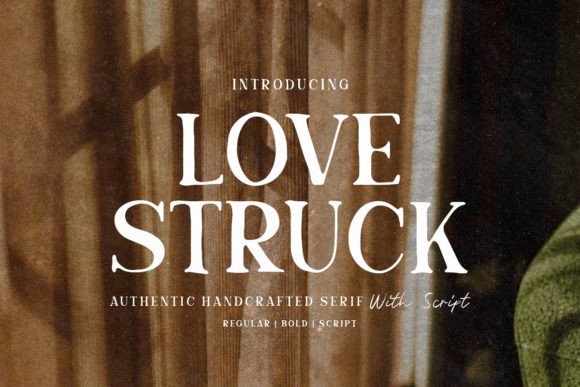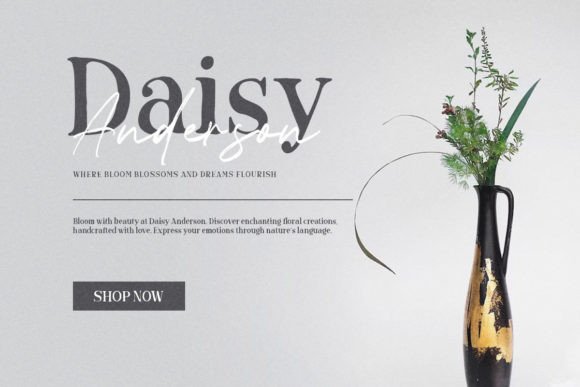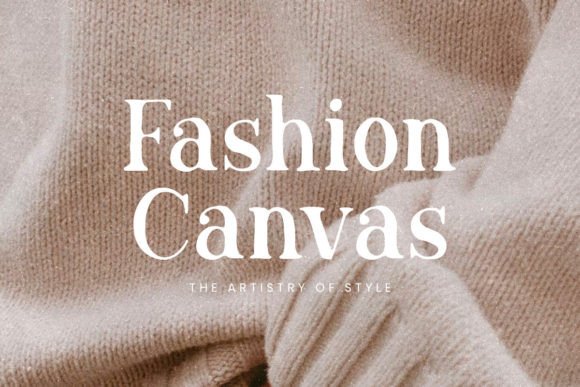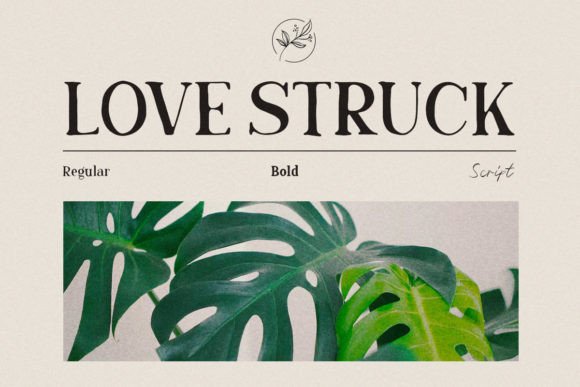
Love Struck Font: Elegant Serif & Script for Wedding Branding!
About the Love Struck Font
Add a touch of class to your work with the Love Struck Font, a truly exceptional typeface. Combining handcraft serif and simple script, Love Struck is an authentic typeface that gracefully marries a delicate and refined aesthetic with a hint of rustic charm.This font perfectly made to be applied especially in logo, and the other various formal forms such as invitations, labels, logos, magazines, books, greeting / wedding cards, packaging, fashion, make up, stationery, novels, labels or any type of advertising purpose.
Love Struck’s elegant yet rustic character makes it ideal for branding projects requiring a touch of vintage sophistication, particularly in logos, wedding stationery, and packaging for high-end products. It also works well in short headlines and display text for fashion or beauty campaigns. However, its delicate serifs and script elements make it less suitable for body copy or UI elements where readability is paramount. Avoid using it for long paragraphs or small sizes.
Pairing Love Struck effectively requires consideration of its inherent elegance. A clean sans-serif like Montserrat or a geometric sans-serif like Futura would provide a strong, modern counterpoint, enhancing readability in supporting text. For a more romantic feel, consider pairing it with a delicate script font like Great Vibes, but use it sparingly to avoid visual clutter.
The overall personality of Love Struck is refined and romantic, with a subtle vintage appeal. Its charm lies in the balanced contrast between its handcrafted serif details and the flowing script elements, creating a sophisticated, yet approachable aesthetic.